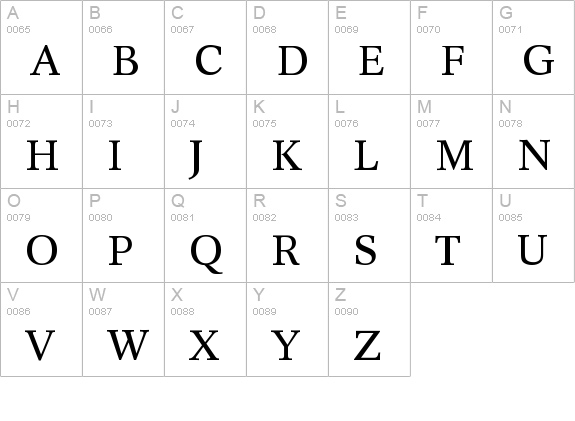
Concorde BE Regular Small Caps & Oldstyle Figures is the standard, neutral variant in the Concorde typeface family \xE2\x80\x94 well suited to general body text, paragraphs, and standard typographic work.
Concorde BE Regular Small Caps & Oldstyle Figures is a timeless and elegant font that exudes sophistication and refinement. With its classic design and attention to detail, this font is perfect for adding a touch of charm to any project. The small caps and oldstyle figures give a vintage feel, making it versatile for both traditional and modern applications. Best of all, this font is available for free download at FontsMarket.com, allowing you to effortlessly enhance your design projects with a touch of elegance and style.